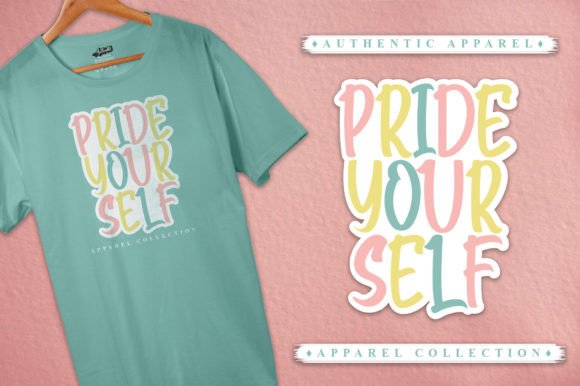
Born Pink Font: Elevate Your Creations with a Stylish Handwritten Display Font
In the world of typography, a font can make or break the visual appeal of a design. If you’re looking for a stylish and versatile font to elevate your creations, look no further than Born Pink Font. This beautifully crafted handwritten display font is designed to make your designs stand out, with its neat kerning and expertly crafted glyphs. In this article, we’ll dive into the features and benefits of Born Pink Font, and explore how you can use it to take your designs to the next level.
What is Born Pink Font?
Born Pink Font is a stylish handwritten display font that is perfect for a variety of design applications. With its neat kerning and carefully crafted glyphs, this font is designed to make your creations look amazing. Whether you’re working on a clothing branding project, crafting a social media post, or designing a tote bag, Born Pink Font is the perfect choice.
Key Features of Born Pink Font
- Stylish Handwritten Design: Born Pink Font features a beautiful handwritten design that adds a touch of elegance and sophistication to any project.
- Neat Kerning: The font’s kerning is carefully crafted to ensure that your text looks professional and polished.
- Versatile: This font can be used in a variety of design applications, from clothing branding to social media graphics.
Benefits of Using Born Pink Font
So why choose Born Pink Font for your design projects? Here are just a few benefits of using this amazing font:
- Adds a Touch of Elegance: Born Pink Font adds a touch of elegance and sophistication to any design project.
- Improves Readability: The font’s neat kerning and clear design make it easy to read, even at small sizes.
- Increases Versatility: With its PUA encoding and wide range of glyphs and swashes, Born Pink Font can be used in a variety of design applications.
- Saves Time: With Born Pink Font, you can create professional-looking designs in no time.
How to Use Born Pink Font
Using Born Pink Font is easy! Here are a few tips to get you started:
- Clothing Branding: Use Born Pink Font to create stunning clothing branding designs, from t-shirts to hoodies.
- Social Media Graphics: Add a touch of elegance to your social media graphics with Born Pink Font.
- Tote Bag Branding: Create eye-catching tote bag designs with Born Pink Font.
- Crafting: Use Born Pink Font to add a personal touch to your crafting projects, from cards to scrapbooking.
Tips and Tricks for Getting the Most Out of Born Pink Font
Here are a few tips and tricks to help you get the most out of Born Pink Font:
- Experiment with Different Sizes: Try using Born Pink Font in different sizes to see how it looks in various contexts.
- Play with Colors: Experiment with different colors to find the perfect combination for your design.
- Use Swashes and Glyphs: Take advantage of Born Pink Font’s PUA encoding to add swashes and glyphs to your design.
- Pair with Other Fonts: Try pairing Born Pink Font with other fonts to create a unique and eye-catching design.